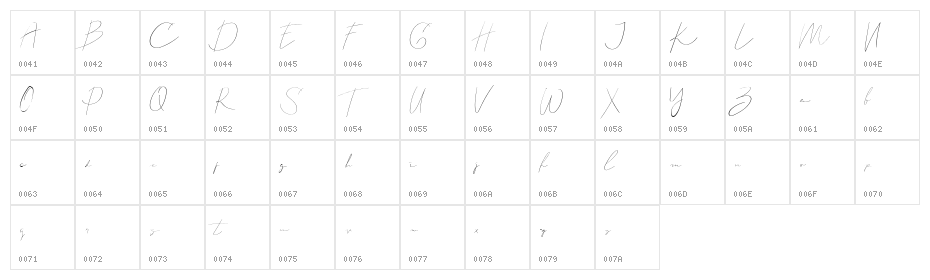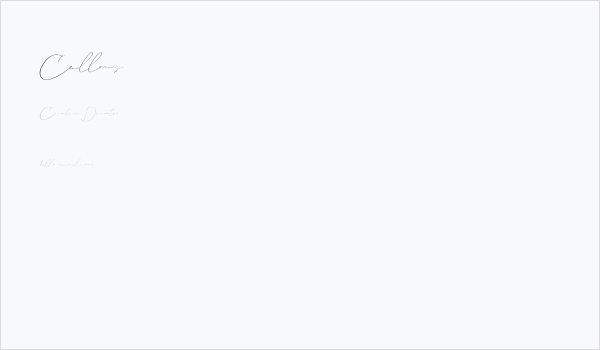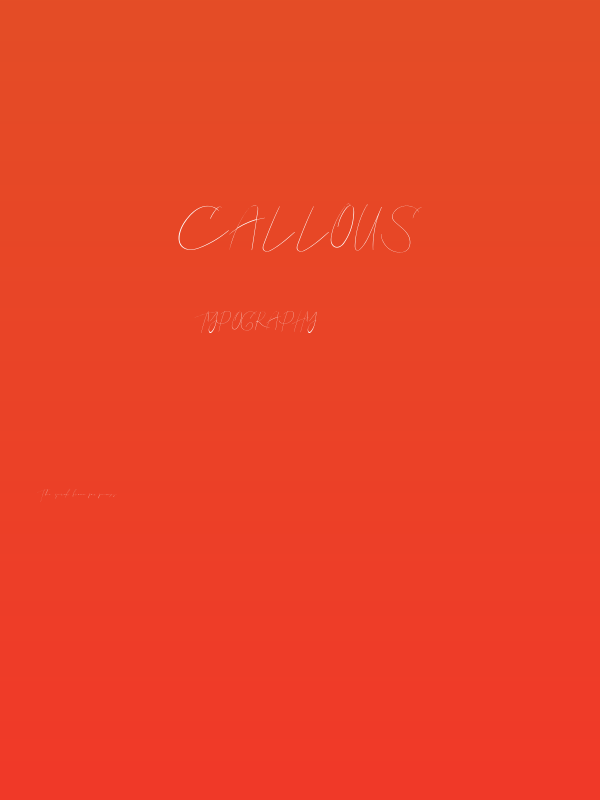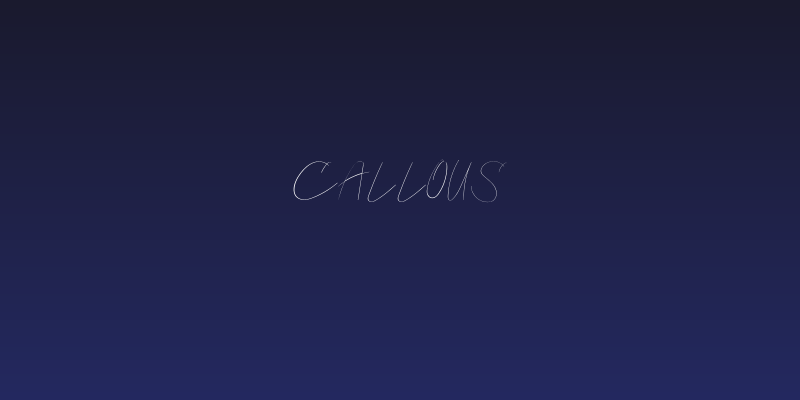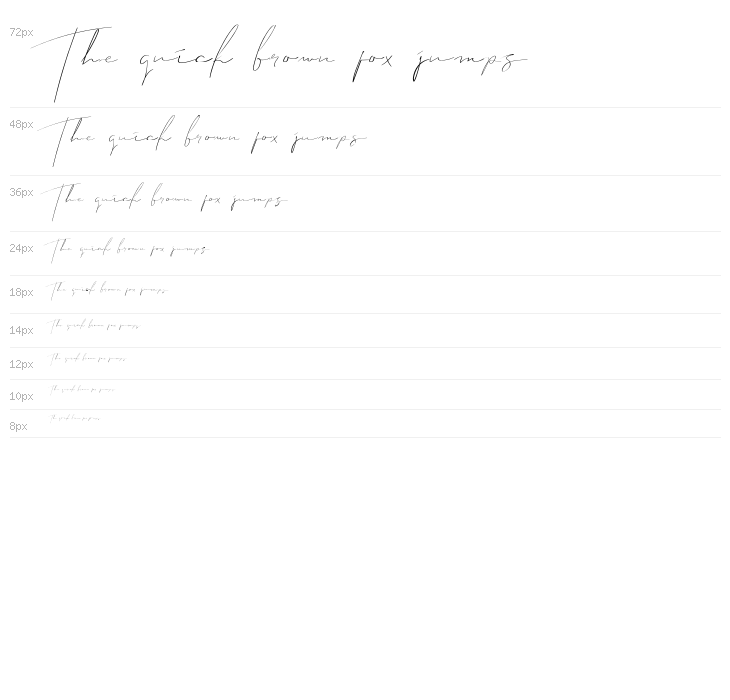
Callous Font
Callous Description
This font features a delicate and elegant script style, characterized by its thin, flowing lines and graceful curves. The uppercase letters are tall and slightly slanted, giving a sense of movement and fluidity. The lowercase letters maintain a consistent style, with smooth connections between characters, enhancing the cursive appearance. The overall design is airy and light, making it suitable for projects that require a touch of sophistication and elegance. The font's thin strokes and high contrast between thick and thin lines add to its refined aesthetic, making it ideal for formal invitations, branding, and decorative purposes.
Overall StyleElegant, Sophisticated
Use CaseHeadlines, Invitations, Branding
Proposed ProjectsIdeal for wedding invitations, elegant branding, decorative headings, and formal event materials.